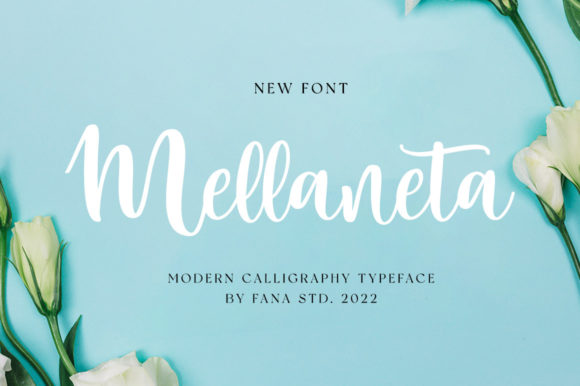
Descend into the realm of elegance and sophistication with our Mellaneta Script font. This exquisitely crafted script font weaves a tapestry of visual intrigue, leaving an ineffaceable mark on your creative endeavors. Step into a world where words dance with grace and fluidity, captivating your audience with every letter you pen.
Immerse yourself in a symphony of aesthetics as Mellaneta Script harmonizes seamlessly with a myriad of projects, from logos and branding to invitations and stationery. Watch as your designs blossom with an aura of timeless beauty and refined charm. Unleash your creativity with an array of stunning glyphs and ligatures, accessible with effortless ease.
Craft logos that exude an air of professionalism and prestige, leaving a lasting impression on your clientele. Design invitations that whisper elegance and romance, setting the tone for unforgettable events. Create stationery that radiates sophistication, making every written word a testament to your discerning taste. Explore a boundless realm of artistic possibilities with Mellaneta Script as your trusted companion.